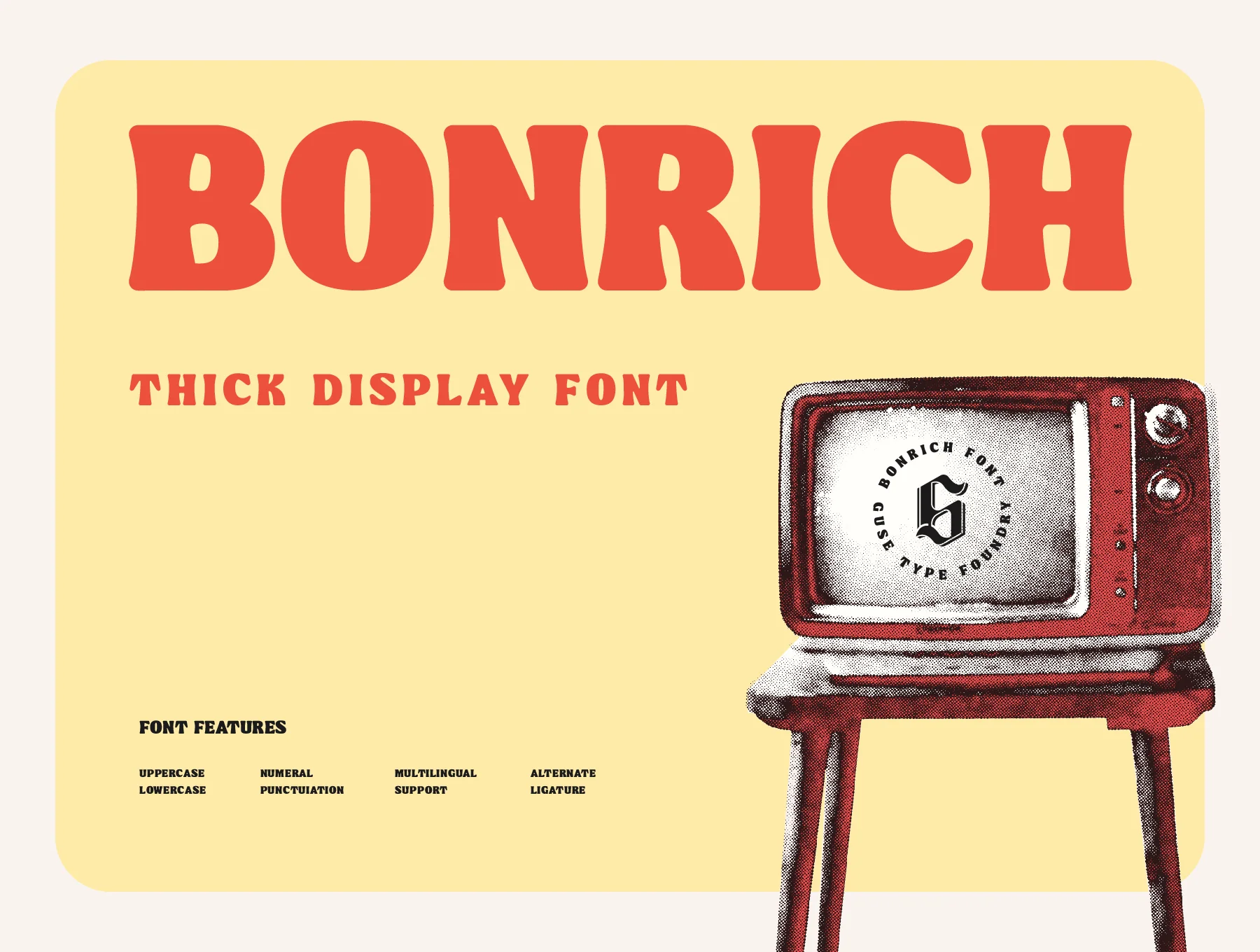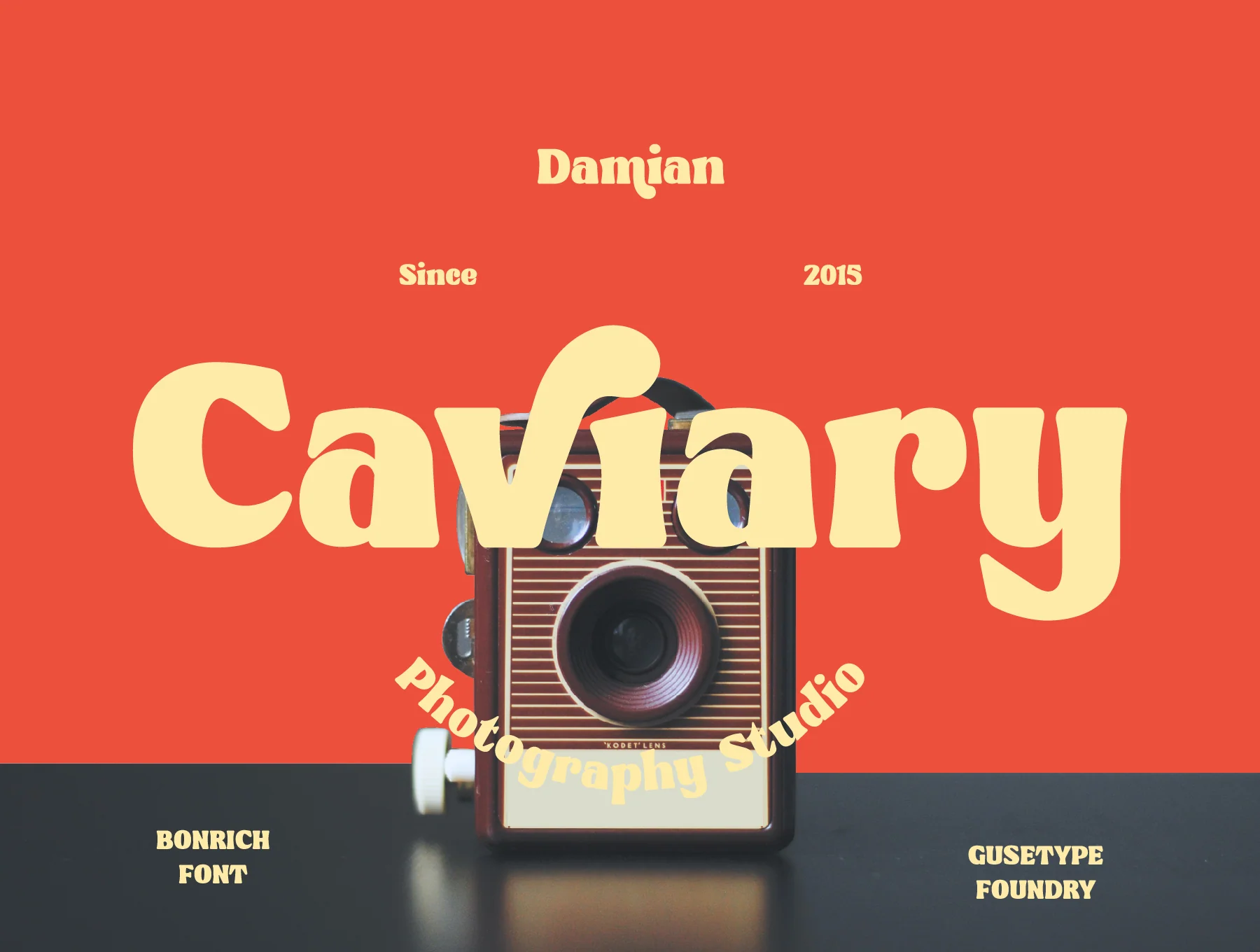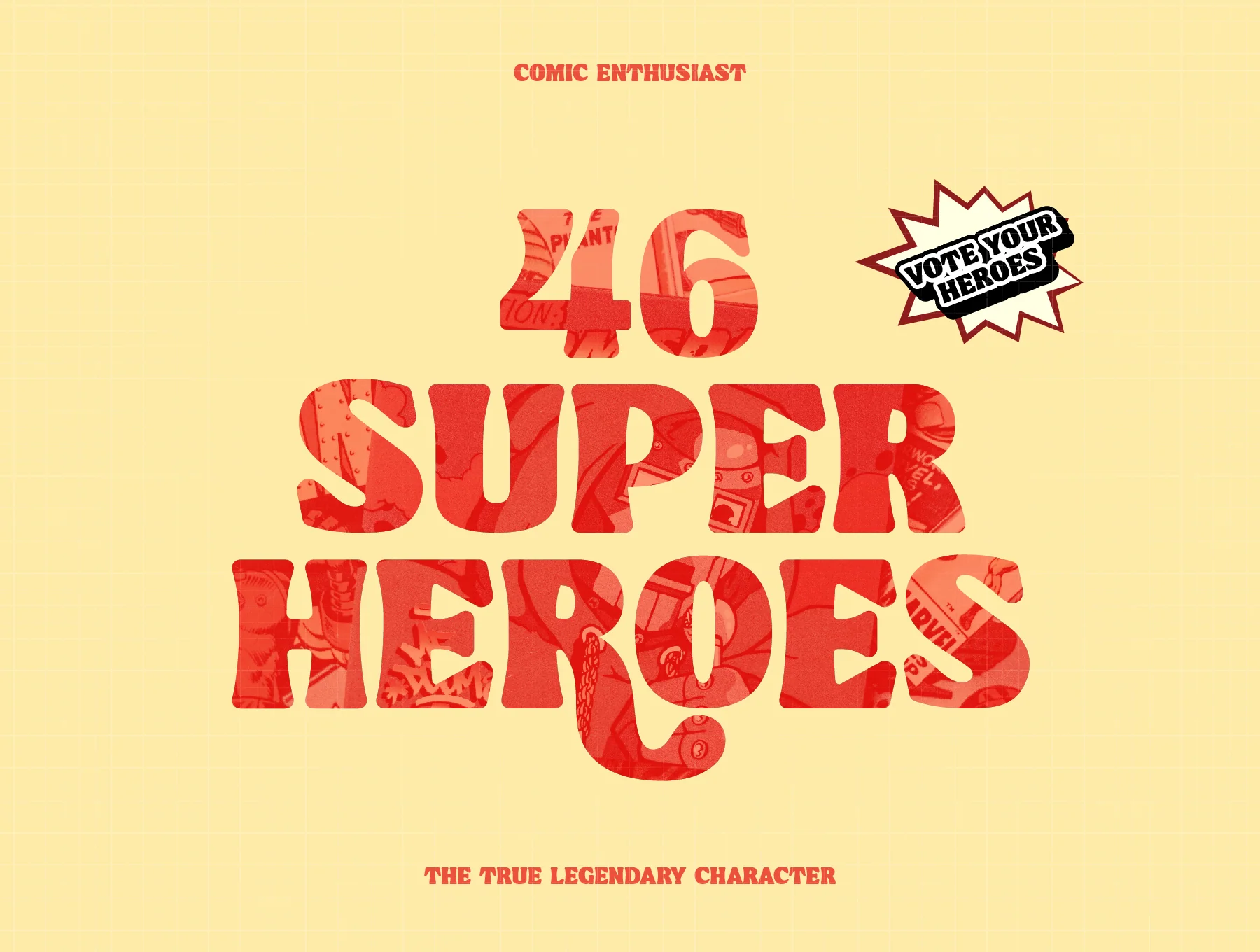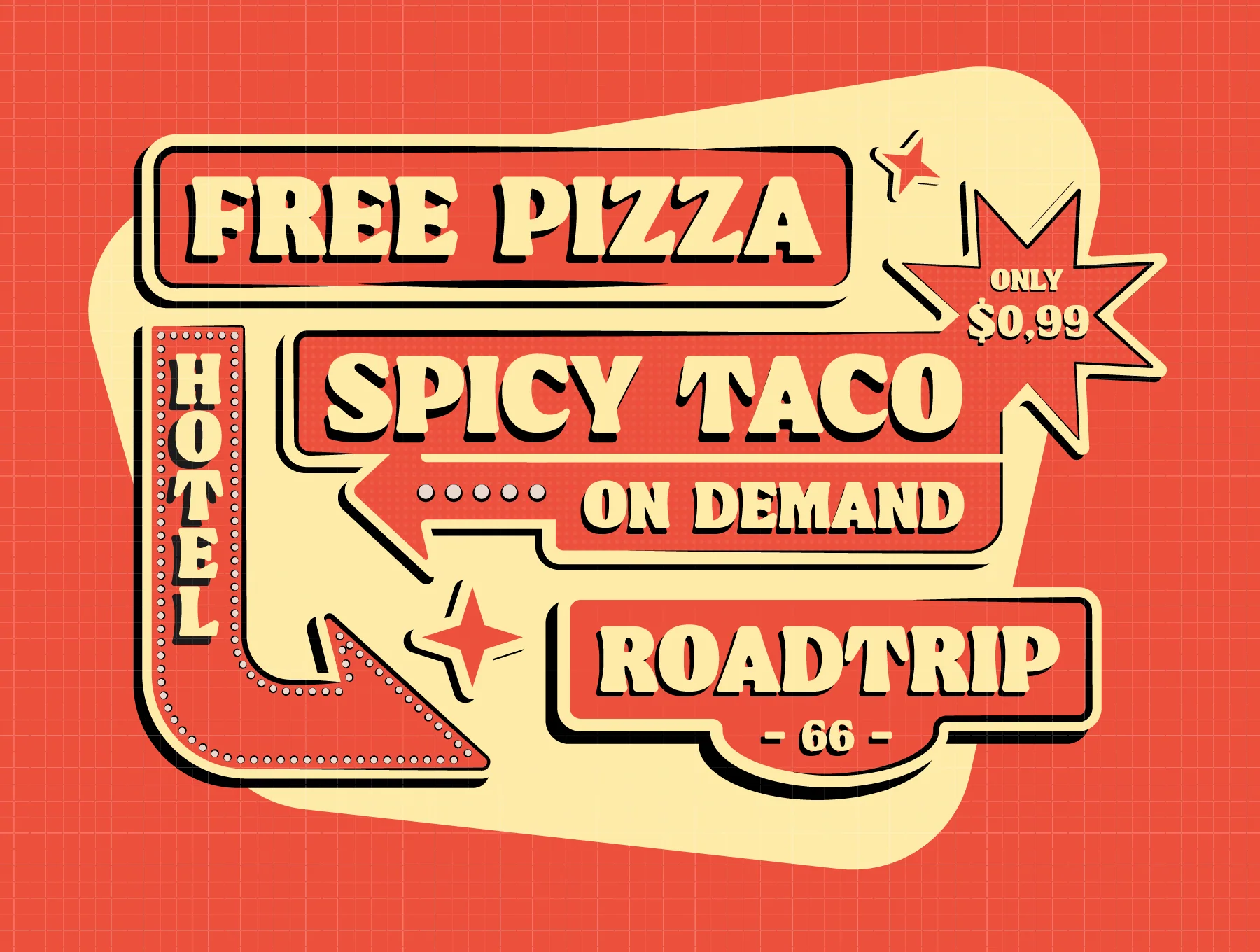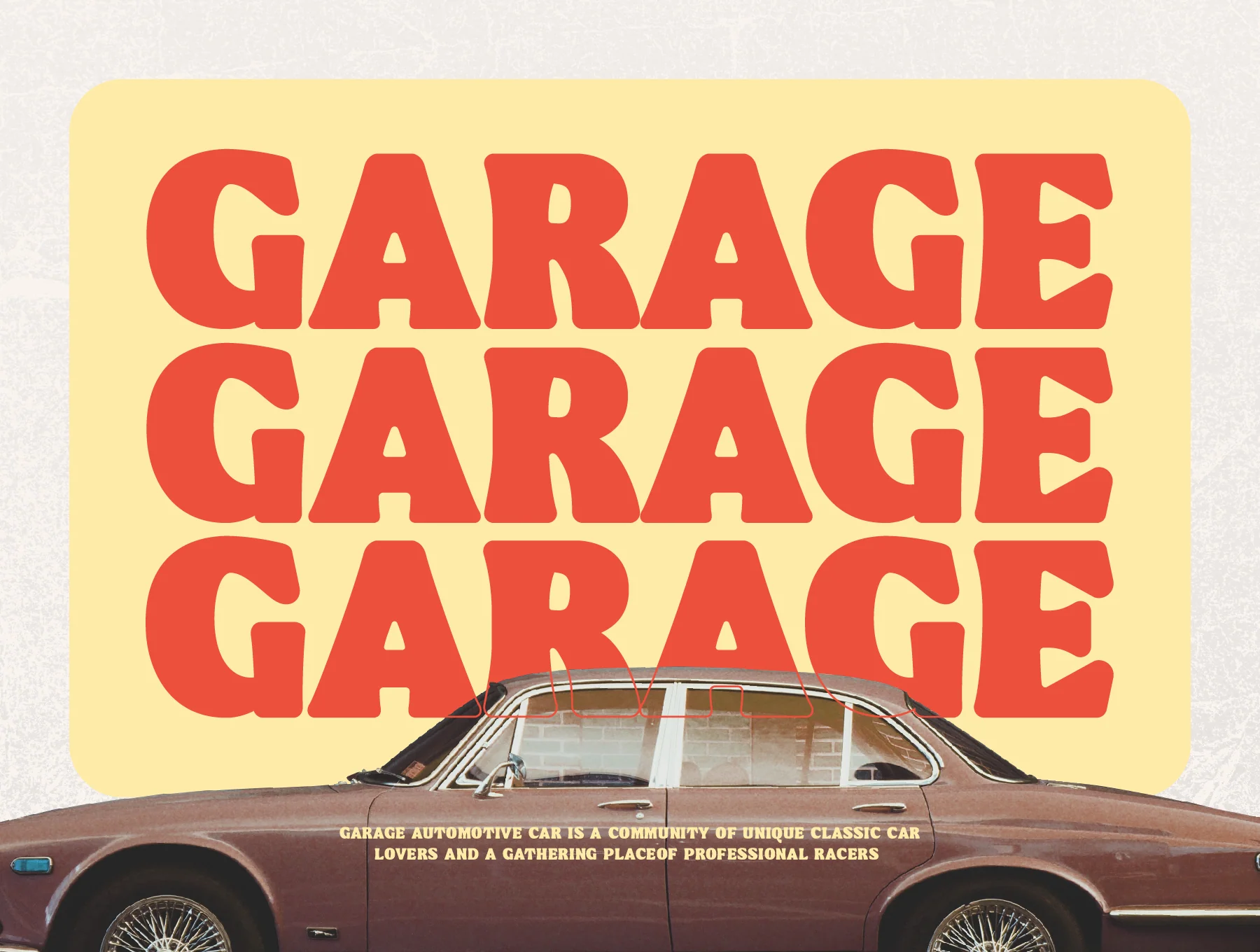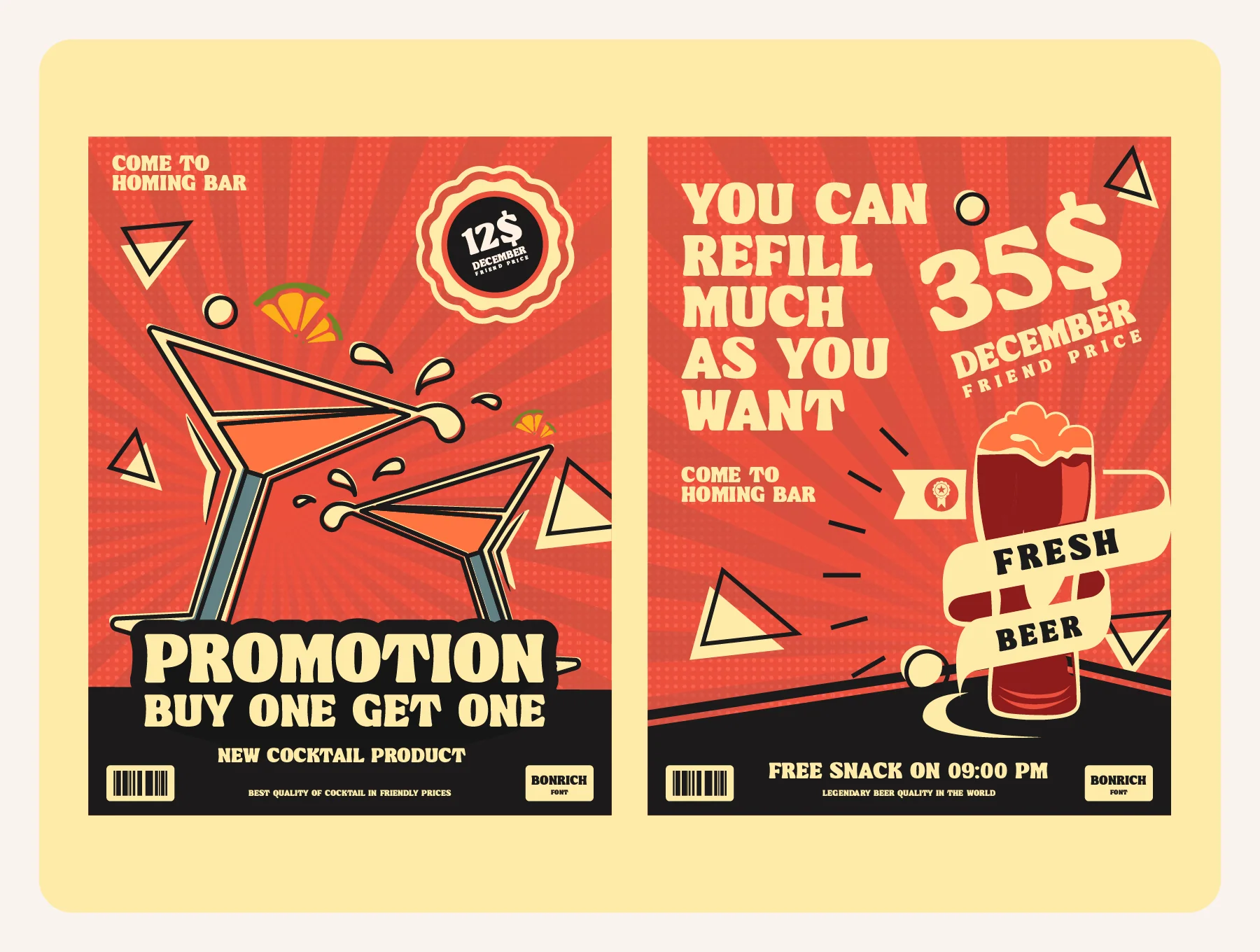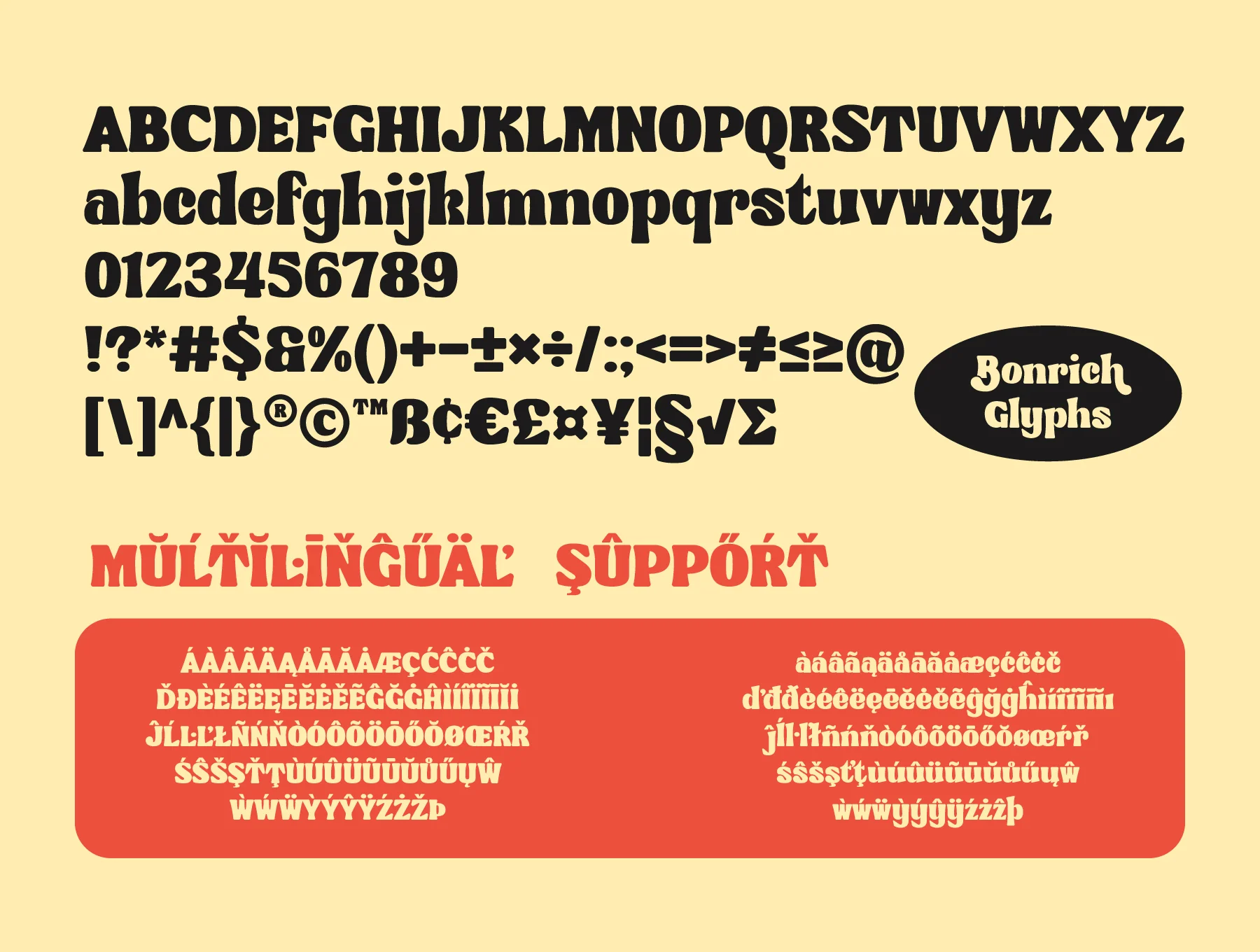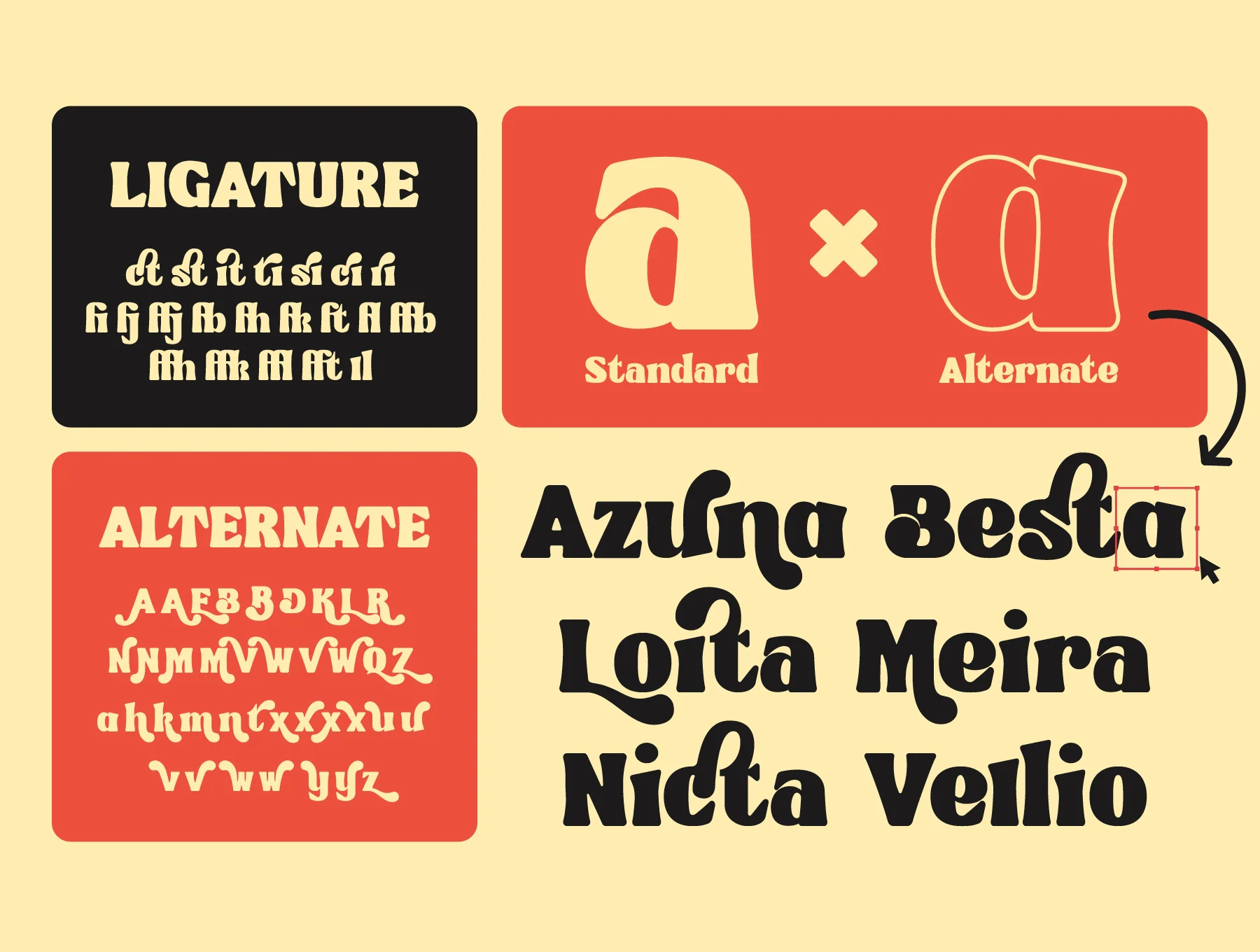
Bonrich Font
Bold Display Typeface
Bonrich Font
Core Glyph Set
Standard Weight
Numbers and Punctuation Symbols
Alternative Forms and Ligatures
Bonrich is a display typeface featuring bold strokes and softly rounded glyph edges. Ideal for retro and vintage-inspired designs, it works well for headlines, posters, logos, and a wide range of creative projects.